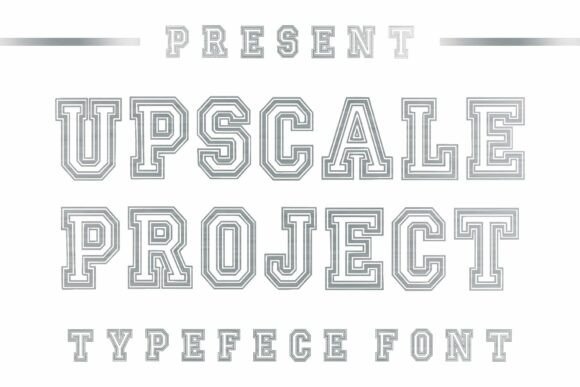
Introducing Upscale Project Font: Elevate Your Designs with Confidence and Impact
In the world of typography, a well-crafted font can make all the difference in elevating a design from ordinary to extraordinary. For those seeking a bold, structured typeface that exudes confidence and impact, look no further than Upscale Project Font. Inspired by classic varsity and athletic lettering, this distinctive font is perfect for creating eye-catching posters, team logos, sports branding, and retro-inspired designs.
The Inspiration Behind Upscale Project Font
Upscale Project Font draws its inspiration from the classic varsity and athletic lettering styles that have been a staple of American sports culture for decades. The font’s creator sought to capture the essence of this timeless style, with its sharp geometry, bold lines, and layered outline. The result is a typeface that is both nostalgic and modern, perfect for designers looking to add a touch of retro flair to their work.
Key Features of Upscale Project Font
So, what sets Upscale Project Font apart from other typefaces? Here are some of its key features:
- Bold and Structured: Upscale Project Font is a bold, structured typeface that commands attention. Its sharp geometry and confident lines make it perfect for creating eye-catching headlines and titles.
- Distinctive Layered Outline: The font’s layered outline gives it a unique, dimensional look that adds depth and visual interest to any design.
- Retro-Inspired: With its classic varsity and athletic lettering style, Upscale Project Font is perfect for creating retro-inspired designs that evoke a sense of nostalgia and timelessness.
- Versatile: Whether you’re designing a poster, team logo, or sports branding materials, Upscale Project Font is a versatile typeface that can be used in a wide range of applications.
Uses for Upscale Project Font
So, what can you use Upscale Project Font for? The possibilities are endless, but here are some ideas to get you started:
- Posters: Create eye-catching posters for events, promotions, or advertising campaigns with Upscale Project Font.
- Team Logos: Design bold, confident team logos for sports teams, schools, or organizations with Upscale Project Font.
- Sports Branding: Use Upscale Project Font to create sports branding materials, such as jerseys, hats, or equipment labels.
- Retro-Inspired Designs: Add a touch of nostalgia to your designs with Upscale Project Font, perfect for creating retro-inspired packaging, advertising, or editorial content.
Why Choose Upscale Project Font?
With so many typefaces to choose from, why should you choose Upscale Project Font? Here are just a few reasons:
- Unique Style: Upscale Project Font offers a unique, distinctive style that sets it apart from other typefaces.
- High-Impact: The font’s bold, structured design makes it perfect for creating high-impact headlines and titles that grab attention.
- Versatile: Upscale Project Font can be used in a wide range of applications, from posters and logos to sports branding and retro-inspired designs.
- Easy to Use: With its clean, simple design, Upscale Project Font is easy to use and pairs well with a wide range of other typefaces.
Tips for Using Upscale Project Font
Here are some tips for getting the most out of Upscale Project Font:
- Use it Boldly: Upscale Project Font is designed to make a statement, so don’t be afraid to use it boldly. Experiment with large font sizes and bold colors to create eye-catching headlines and titles.
- Pair it with Contrasting Fonts: For maximum impact, pair Upscale Project Font with contrasting fonts that offer a different style or texture. This will help to create visual interest and add depth to your designs.
- Experiment with Colors: Upscale Project Font looks great in a wide range of colors, so don’t be afraid to experiment. Try using bright, bold colors to create eye-catching designs that pop.
In conclusion, Upscale Project Font is a bold, structured typeface that is perfect for designers looking to add a touch of confidence and impact to their work. With its distinctive layered outline, sharp geometry, and retro-inspired style, this font is ideal for creating eye-catching posters, team logos, sports branding, and retro-inspired designs. Whether you’re a seasoned designer or just starting out, Upscale Project Font is a versatile, easy-to-use typeface that is sure to elevate your next project.